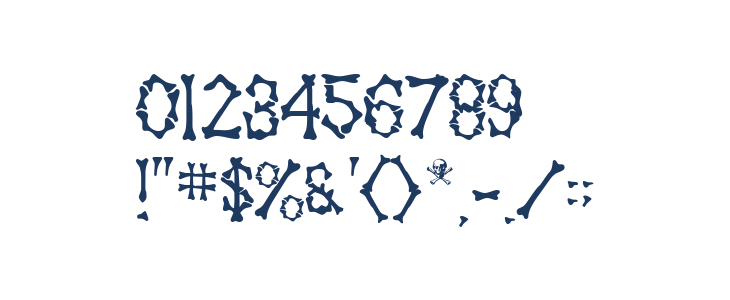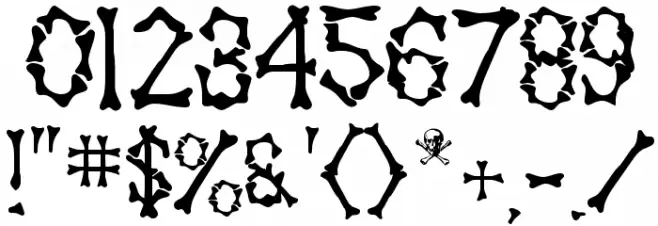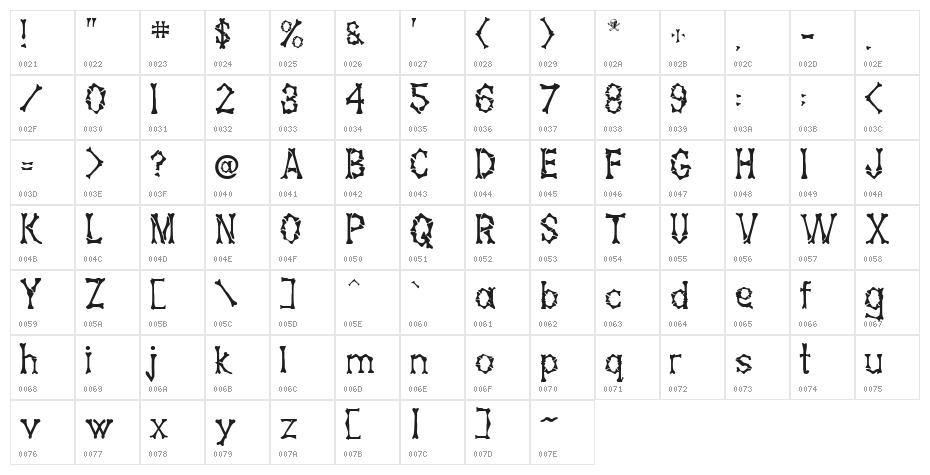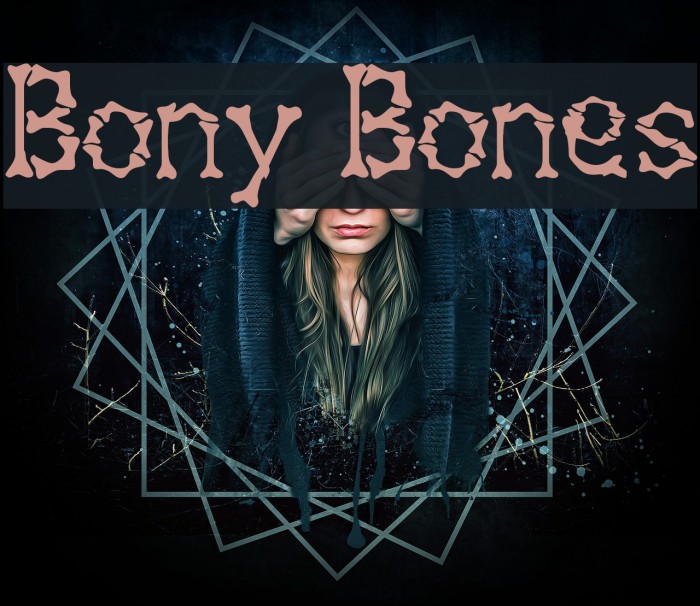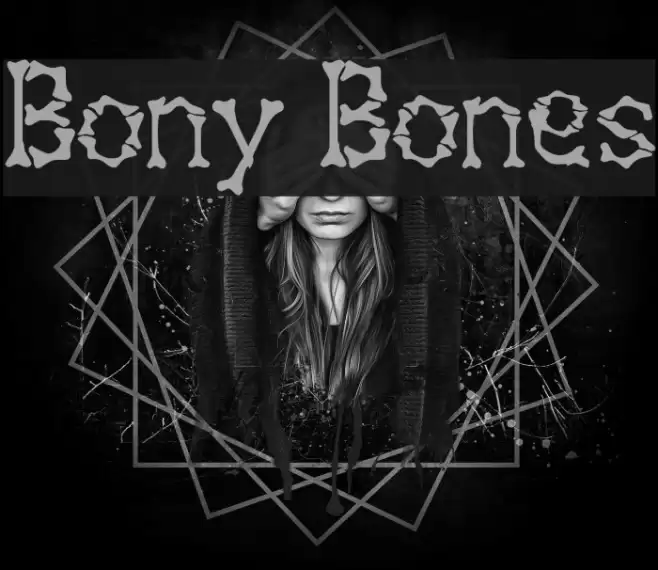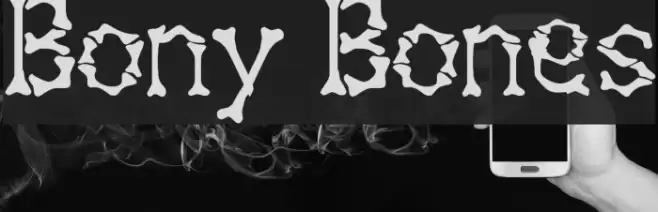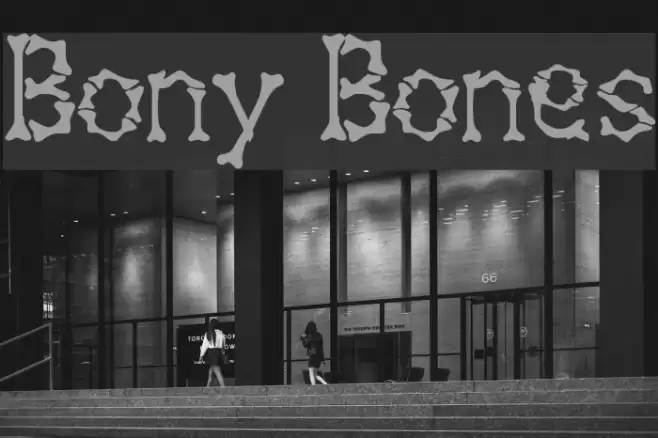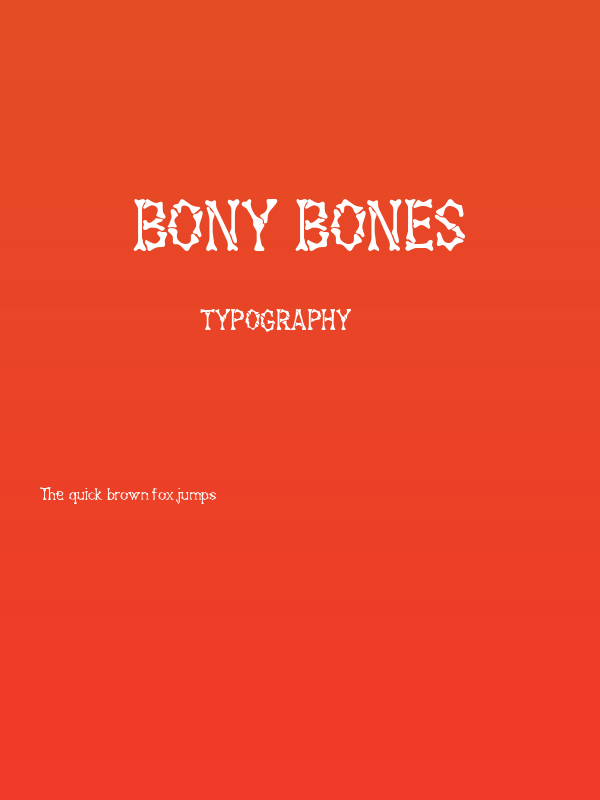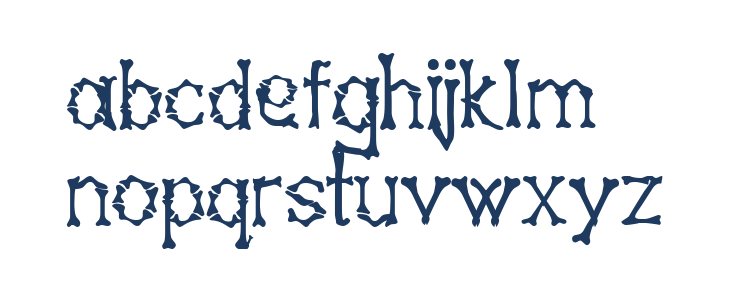
Bony Bones Font
Bony Bones Description
This font features a unique and playful design, with each character resembling a series of bones. The letters are crafted to give a skeletal appearance, making it ideal for themes related to Halloween, horror, or anything spooky. The uppercase and lowercase letters maintain a consistent bone-like structure, while the numbers and special characters follow the same motif, adding to the overall cohesive look. The font's distinct style is both eye-catching and thematic, perfect for creating a chilling atmosphere in any design project.
| Use Case | Headlines, Logos, Themed Invitations |
| Proposed Projects | Ideal for Halloween invitations, horror movie posters, themed party decorations, and any project requiring a spooky or eerie aesthetic. |